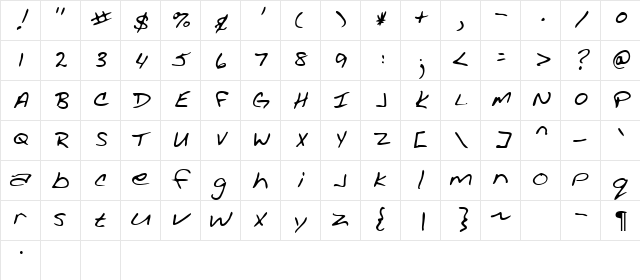
Jantz Regular
Design Context for Jantz
Jantz is a composed and adaptable typeface that performs quietly and consistently across a wide range of design contexts.
Pro Tip: Use Jantz in both headline and body roles to test its range before committing to a single application.